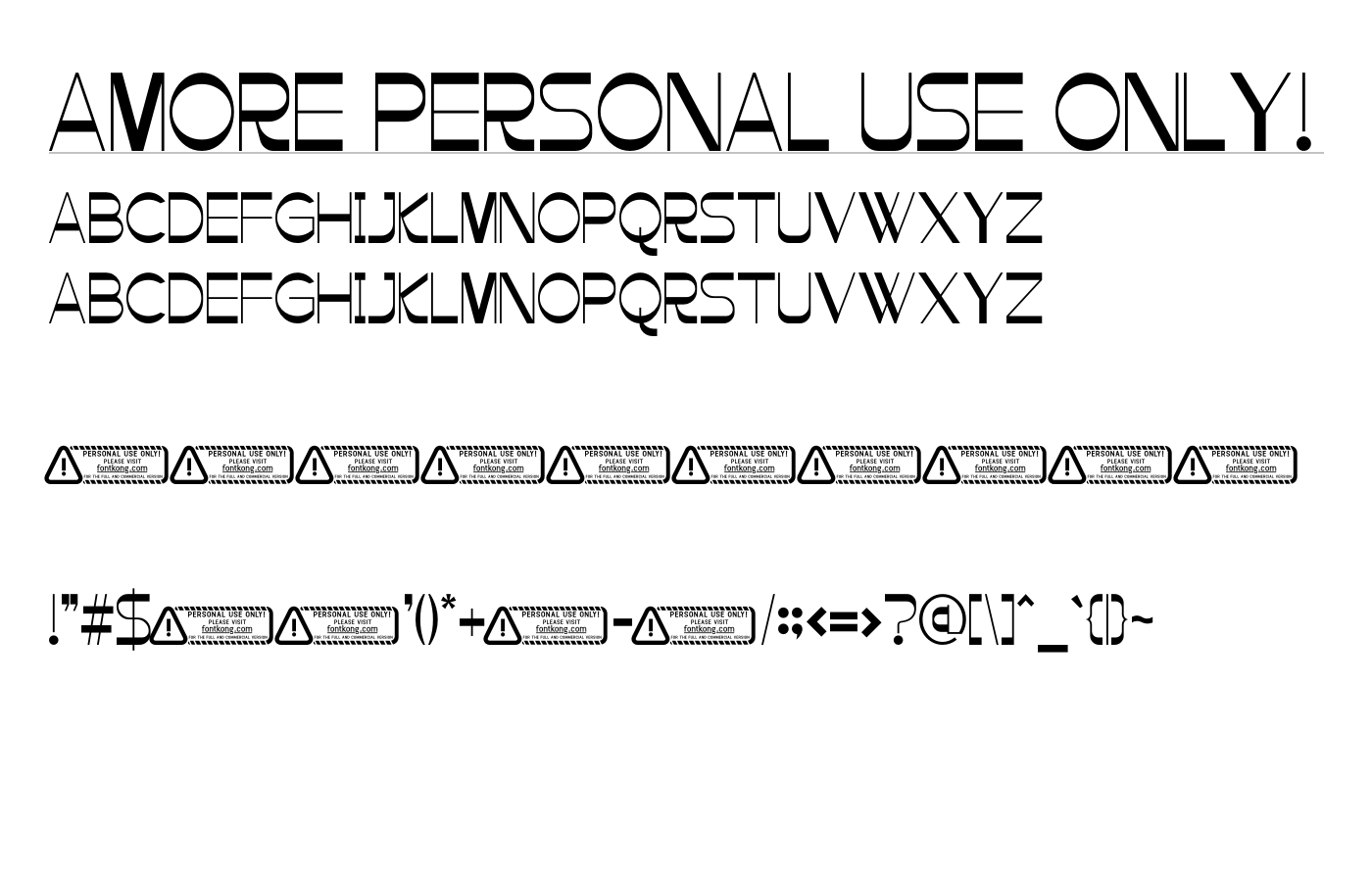
Amore PERSONAL USE ONLY is a modern, geometric sans-serif font with a stylish, Art Deco-inspired design. Its sharp, thin lines and high contrast between thick and thin strokes give it a sleek, elegant feel that works well for fashion branding, luxury packaging, and eye-catching headlines. This font’s clean and decorative letterforms bring a contemporary yet vintage charm, making it perfect for projects seeking a sophisticated, artistic look.
Amore PERSONAL USE ONLY! Font
About Amore PERSONAL USE ONLY! Font